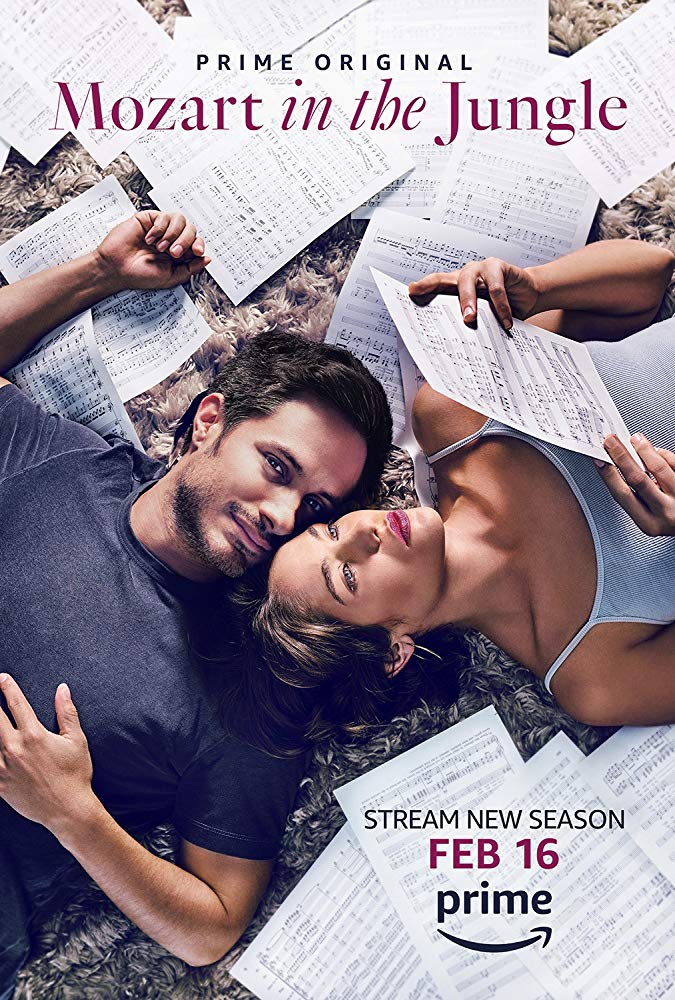
Mozart in the Jungle Font
ComedyMozart in the Jungle is a TV series that ran for four seasons from 2014 to 2018. It is a comedy-drama that follows the fictional New York Symphony and its eccentric members, including a young conductor named Rodrigo.
The ''Mozart in the Jungle'' title of the series uses two variants of Genath; Display and italic. Genath is a revival type, based on a 1720 specimen, which contains Johann Wilhelm Haas's first design for the Genath Foundry in Basel, Switzerland.